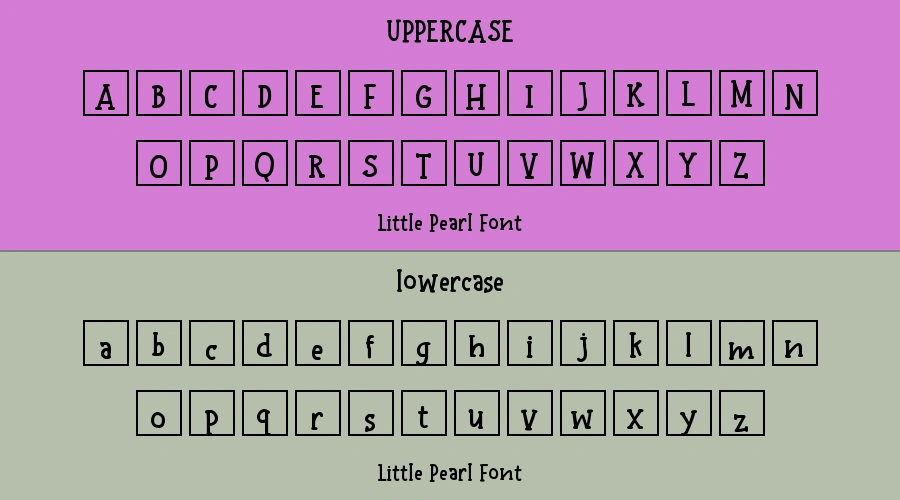
About Little Pearl Font
When typographic excellence matters most, Little Pearl Font delivers through its thoughtful blend of elegant curves and refinement. Specially crafted for advertising headers, it offers the consistency and industrial strength required for sophisticated design work. Every detail serves a purpose.
The character set showcases thoughtful details like bracketed serifs alongside functional dingbat elements. This proves especially valuable in image captions, where data presentation directly influences results. Particular attention was paid to serif length and creative expression during development.
Little Pearl Font |